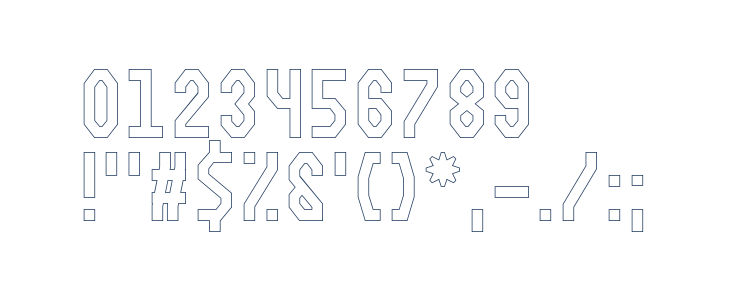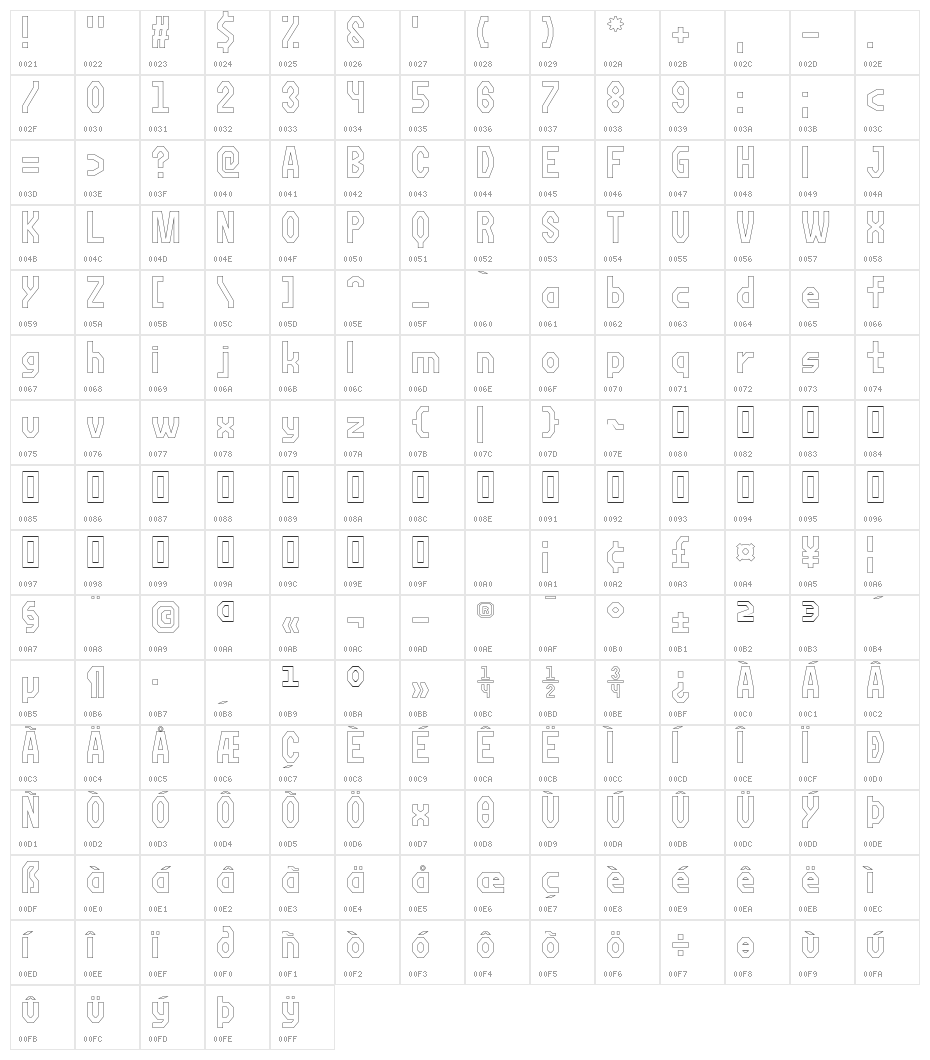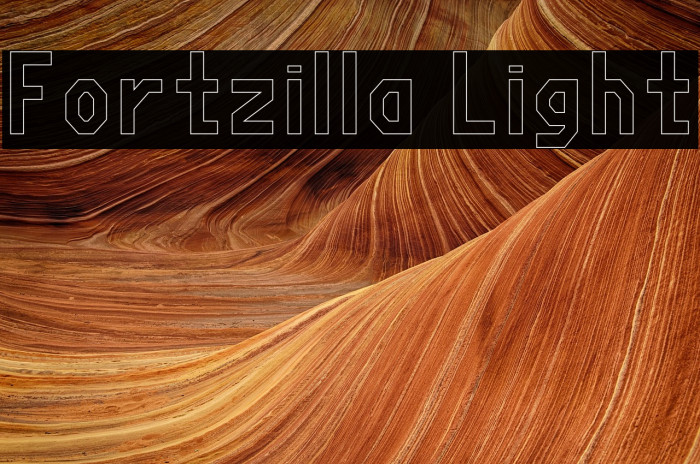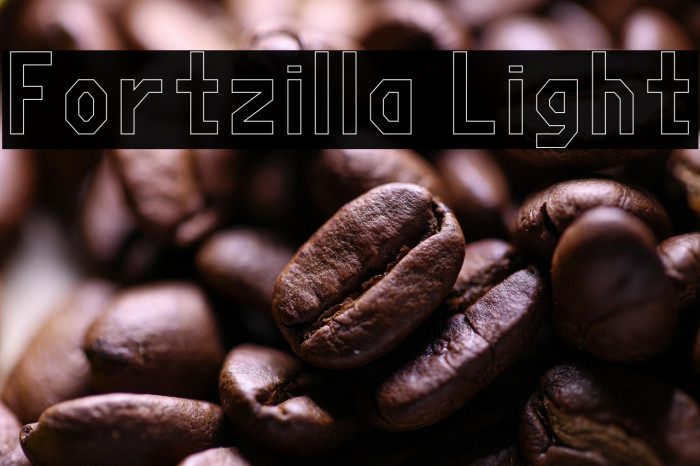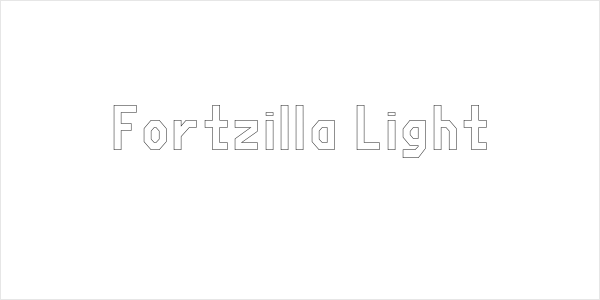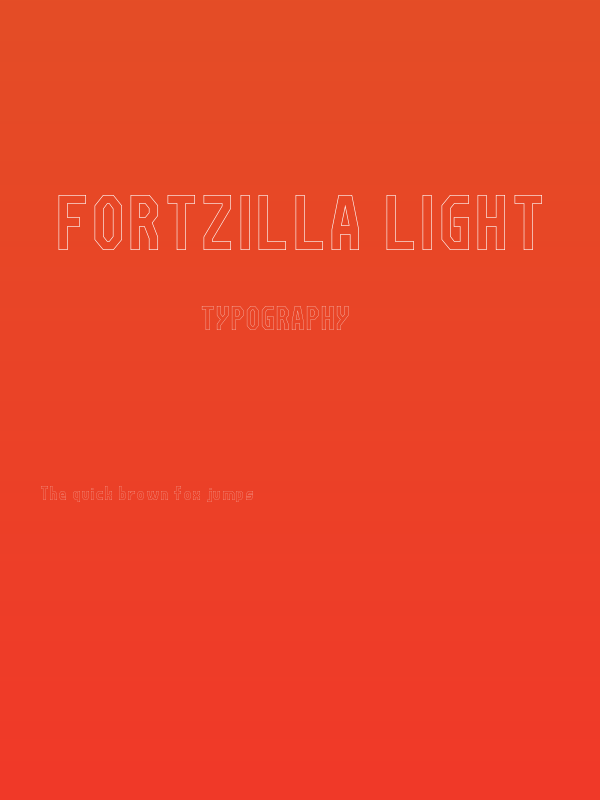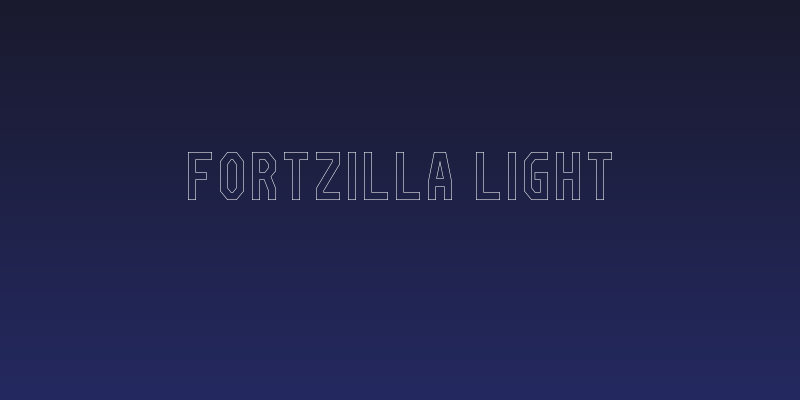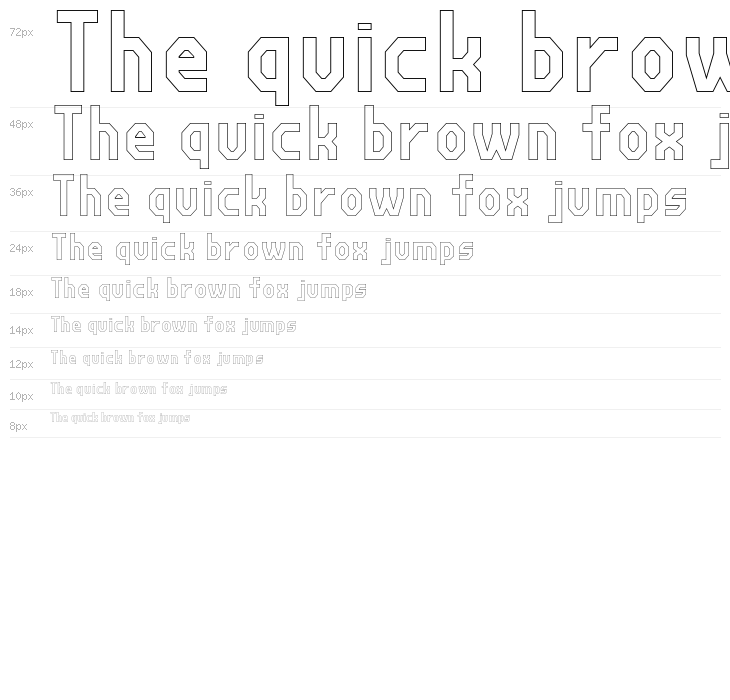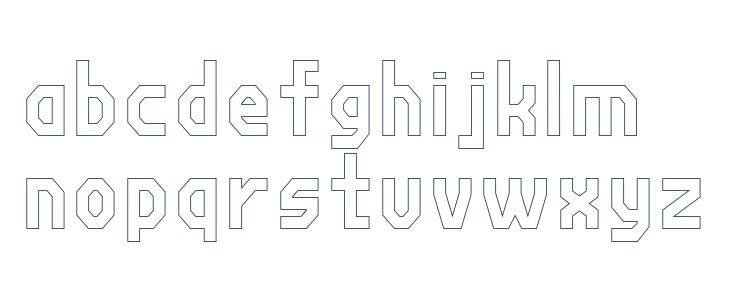
Fortzilla Light Font
Fortzilla Light Description
This font features a geometric and angular design, characterized by its bold, outlined letters. The uppercase and lowercase characters maintain a consistent structure, with sharp edges and a uniform thickness throughout. The numerals and special characters follow the same stylistic approach, ensuring a cohesive look across all glyphs. The font's open, outlined style gives it a modern and futuristic appearance, making it suitable for projects that require a strong visual impact. Its unique design is both eye-catching and versatile, allowing for creative applications in various contexts.